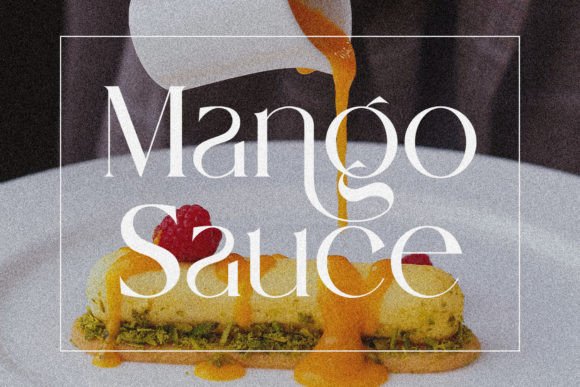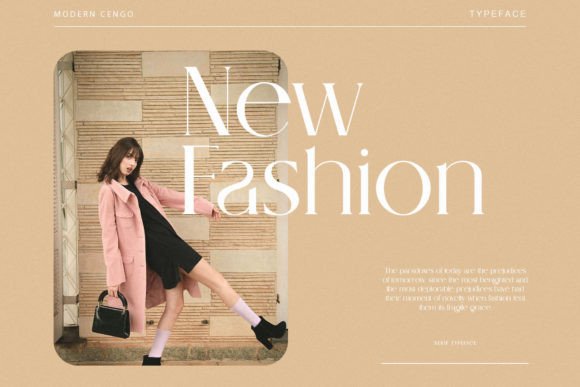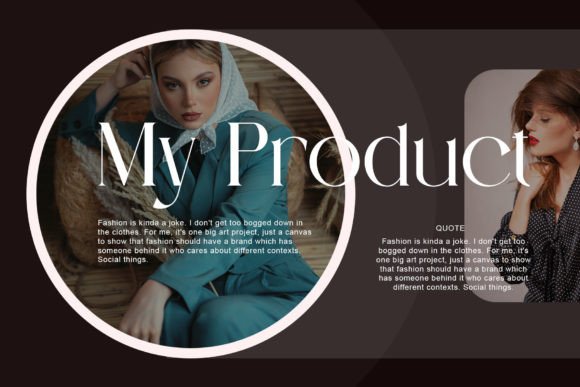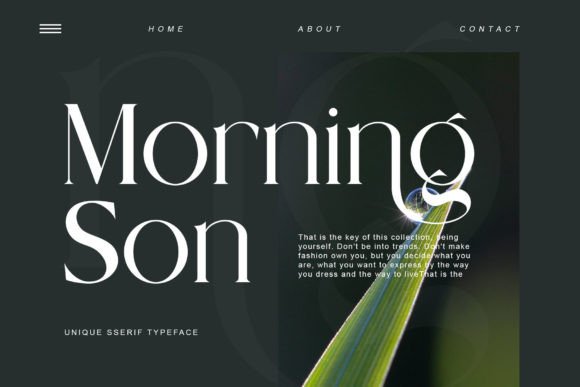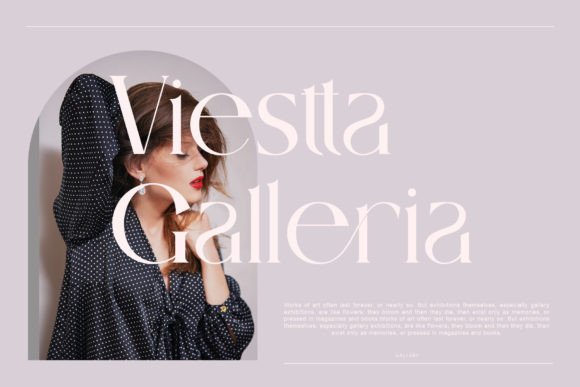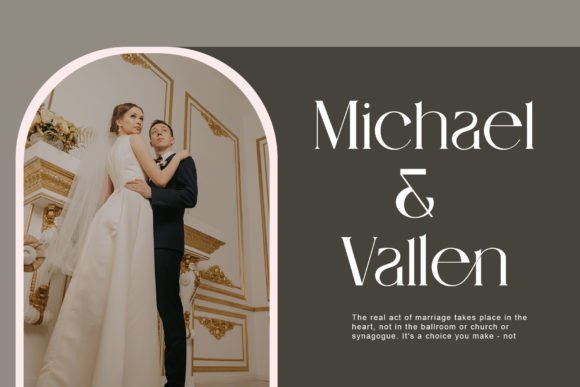
Introduction to Modern Chengo Font
Have you ever stared at a blank canvas, trying to bring your creative vision to life, only to feel like something’s missing? That’s when the perfect font can make all the difference. For designers seeking to add a touch of elegance and sophistication to their work, the Modern Chengo Font is an absolute game-changer. This beautiful, high-quality serif typeface is designed to evoke a sense of nostalgia and modernity, making it perfect for logos, magazines, and social media.
What sets Modern Chengo Font apart is its versatility and attention to detail. With OpenType features, ligatures, numbers, and punctuation, this font is a valuable design resource that can elevate any creative project. Plus, with PUA encoding, accessing the amazing glyphs and ligatures is a breeze. Whether you’re a seasoned designer or just starting out, the Modern Chengo Font is a free download that’s sure to become a trusted companion in your design journey.
Imagine having a font that can seamlessly blend traditional and modern styles, giving your designs a unique and timeless feel. That’s what the Modern Chengo Font offers, and it’s available to you with a transparent background, ready to be used together for your next design project. So why wait? Download the Modern Chengo Font today and discover a new level of creative freedom.
Key Features of Modern Chengo Font
- High-quality font design with a modern twist, perfect for creative projects and designs.
- Unique characteristics include bold, clean lines and a minimalist aesthetic, making it ideal for modern design projects.
- Perfect for use in graphic design, digital art, and other creative pursuits, the Modern Chengo Font is a valuable design resource.
Honest Review: Modern Chengo Font
I recently stumbled upon the Modern Chengo Font, a design resource that caught my attention. As a designer, I appreciate high-quality fonts that can elevate a creative project. After exploring the Modern Chengo Font, I’m here to share my honest review.
- ✨ Unique and modern design style that’s perfect for contemporary projects
- ✨ High-quality font that’s crisp and clear, even at larger font sizes
- ✨ Transparent background, making it easy to use with any design element
However, I do have a few limitations to mention:
- ⚠️ Limited font styles available, which might not be ideal for projects requiring multiple font variations
- ⚠️ Not suitable for text-heavy projects, as the font can be a bit too decorative
Overall, I’m impressed with the Modern Chengo Font. It’s a fantastic design resource for designers looking for a modern and high-quality font to elevate their creative projects. While it has some limitations, I believe it’s a great addition to any design library.
Modern Chengo Font
Getting the Most Out of Modern Chengo Font
To get the most out of Modern Chengo Font, use it in conjunction with a transparent background to create visually appealing designs. Experiment with different font sizes, colors, and styles to add depth and interest to your creative project.
Modern Chengo Font is ideal for use in creative projects, such as logo design, typography, and branding. It’s also suitable for use in presentations, reports, and other business documents where a high-quality, modern font is desired.